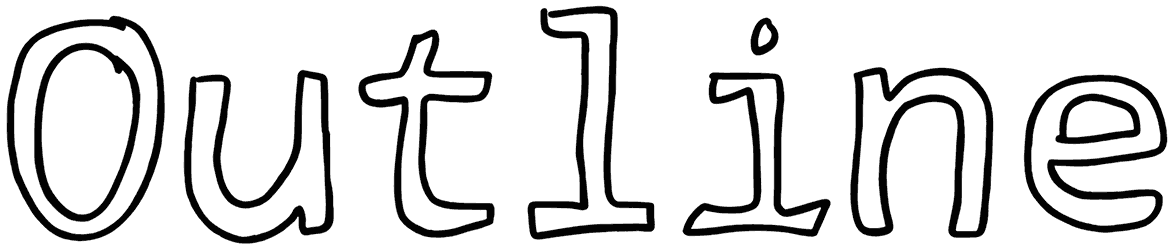
Outline Font
Sometimes a fancy font like Outline would give a little bit of variety to create content such as book illustrations, educational brochures, printing on clothes, and wallpapers.
Its hollow characters carry a sense of eerie, jauntiness, clutter, and friendly, so you can achieve the best outcome by trying this outline font. Also, if you need more fonts in the same category, we offer you to visit our exclusive archive and find your desired one.